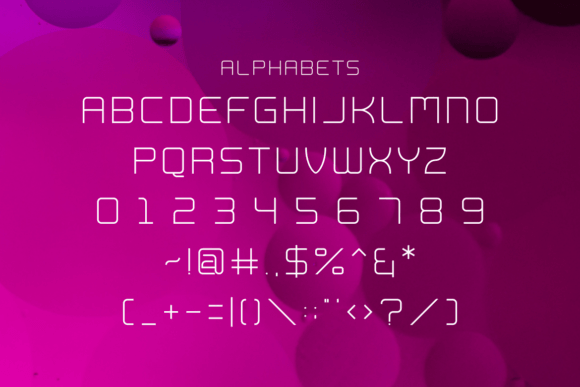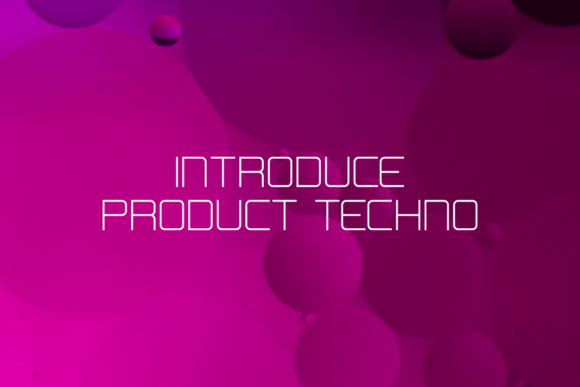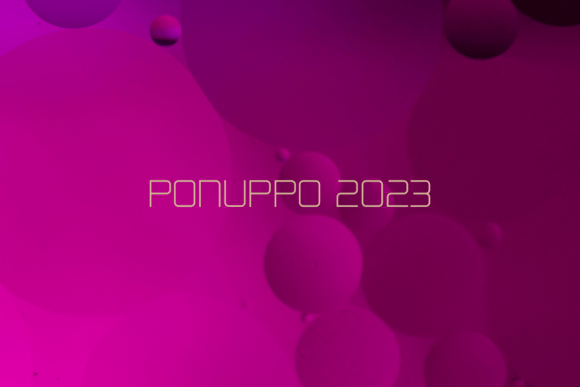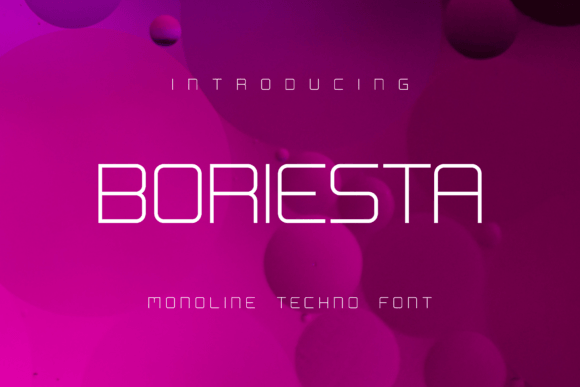
Boriesta Font: The Perfect Choice for Tech Product Descriptions
In the world of design, typography plays a crucial role in conveying the message and aesthetic of a product. When it comes to describing products in the realm of technology, robotics, billiard games, machines, electronics, and more, the right font can make all the difference. This is where Boriesta Font comes into play – a thin, elegant, and highly legible font designed specifically for product descriptions.
What is Boriesta Font?
Boriesta Font is a carefully crafted typeface intended for use in product descriptions, particularly in the tech industry. Its slender lines and minimalist design make it an ideal choice for supporting text, rather than for main product displays. This font serves as a perfect alternative to complement your main font, adding a touch of sophistication and modernity to your product descriptions.
Key Features of Boriesta Font
- Thin and Elegant Design: Boriesta Font boasts a sleek and slender design, making it perfect for product descriptions that require a touch of elegance and sophistication.
- High Legibility: The font’s clear and simple lines ensure high legibility, even at smaller font sizes, making it ideal for body text and product descriptions.
- Tech-Industry Focus: Boriesta Font is specifically designed with the tech industry in mind, making it a perfect fit for product descriptions in the world of technology, robotics, billiard games, machines, electronics, and more.
- Supporting Font: This font is intended to be used as a supporting font, complementing your main font and adding visual interest to your product descriptions.
Use Cases for Boriesta Font
Boriesta Font is versatile and can be used in a variety of contexts, including:
- Product Descriptions: Use Boriesta Font to add detailed descriptions of your tech products, highlighting their features and benefits.
- Technical Writing: This font is perfect for technical writing, such as user manuals, instructional guides, and technical specifications.
- Digital Marketing: Boriesta Font can be used in digital marketing materials, such as blog posts, social media updates, and email newsletters, to add a touch of sophistication and modernity.
- Packaging and Labeling: This font can also be used on product packaging and labeling, providing a clear and concise way to communicate product information.
Benefits of Using Boriesta Font
By incorporating Boriesta Font into your design, you can:
- Enhance Readability: Boriesta Font’s clear and simple design ensures high legibility, making it easier for readers to understand your product descriptions.
- Add Visual Interest: This font’s elegant and slender design adds a touch of sophistication and modernity to your product descriptions, setting your brand apart from the competition.
- Improve Brand Consistency: Boriesta Font can be used across various marketing materials, ensuring consistency and cohesion in your brand’s visual identity.
| Font Name | Boriesta Font |
| Author | ponuppo |
In conclusion, Boriesta Font is a versatile and elegant typeface designed specifically for product descriptions in the tech industry. Its thin and elegant design, high legibility, and tech-industry focus make it an ideal choice for supporting text. By incorporating Boriesta Font into your design, you can enhance readability, add visual interest, and improve brand consistency. Whether you’re a designer or crafter, Boriesta Font is a great addition to your typography arsenal.